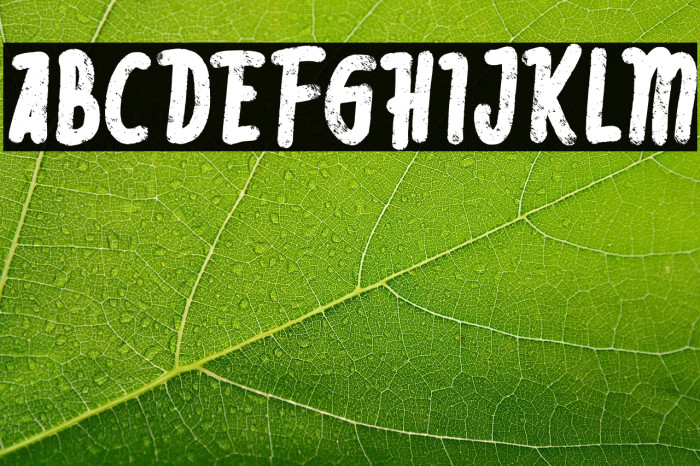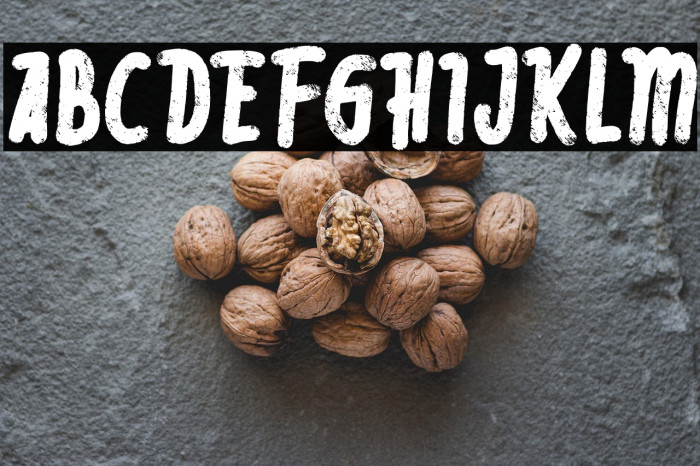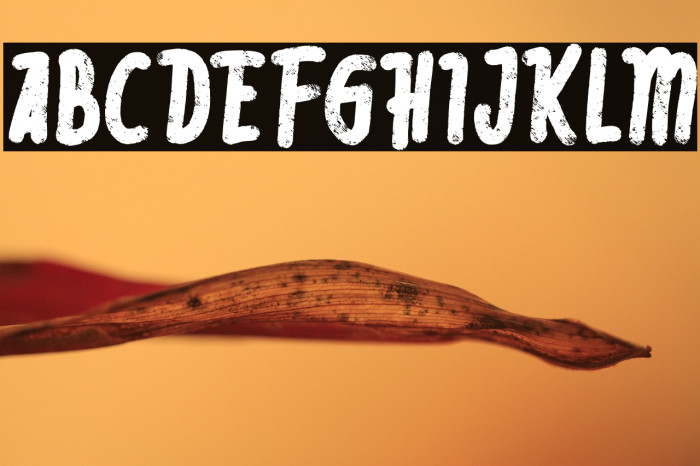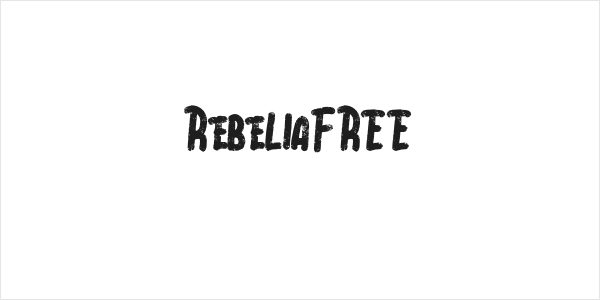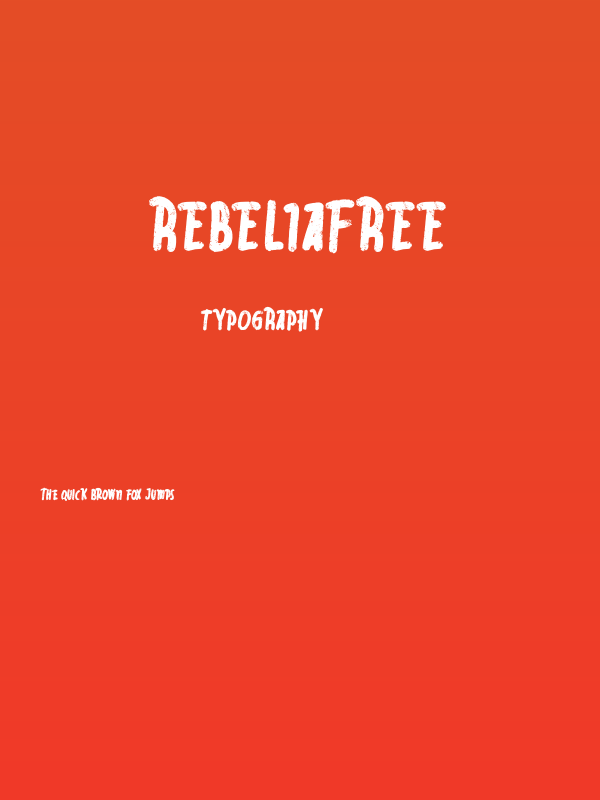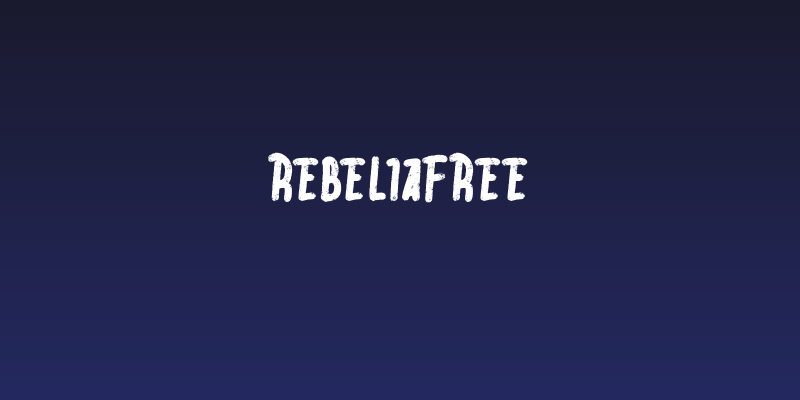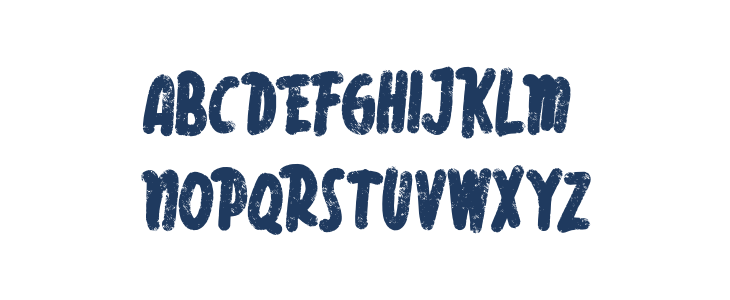
RebeliaFREE Font
RebeliaFREE Description
This font features a bold and distressed style, characterized by its rough, textured appearance. The letters are thick and have an uneven, hand-painted look, giving them a rebellious and edgy feel. The uppercase and lowercase letters maintain a consistent style, with each character exhibiting a unique, weathered texture that adds depth and character. The font's boldness and distressed design make it stand out, ideal for projects that require a strong visual impact.
| Proposed Projects | Ideal for posters, album covers, branding for edgy or alternative products, and any design requiring a bold statement. |